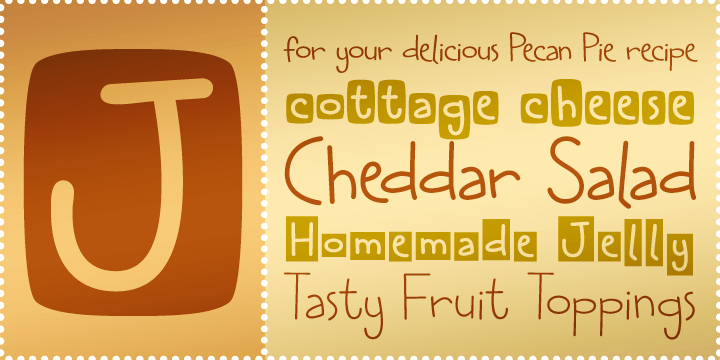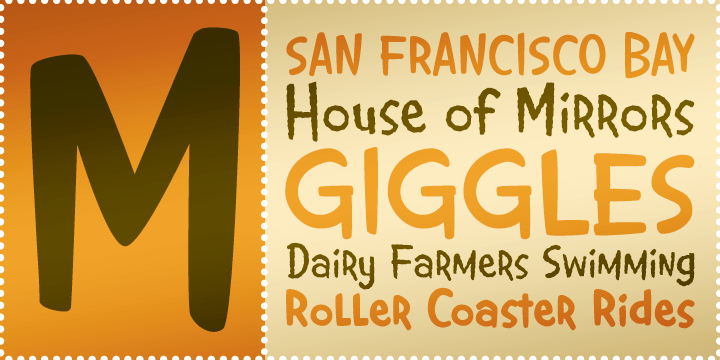
Giggles BTN
Giggles BTN is a playful display family with a cheerful personality that balances charm and whimsy. Friendly enough for party invitations and playful enough for children's books, it brings a lighthearted tone to designs without losing clarity. The core Giggles styles offer a soft, approachable display voice in Light, Regular, and Bold weights, while the Giggles Wiggles companions add extra energy and movement through more animated forms and outline options. Together, the family is well suited for invitations, greeting cards, children's publishing, party materials, craft projects, packaging, and playful branding that calls for a fun and expressive look.
Giggles BTN Light
Giggles BTN Regular
Giggles BTN Bold
Giggles Wiggles BTN
Giggles WIggles BTN Outline